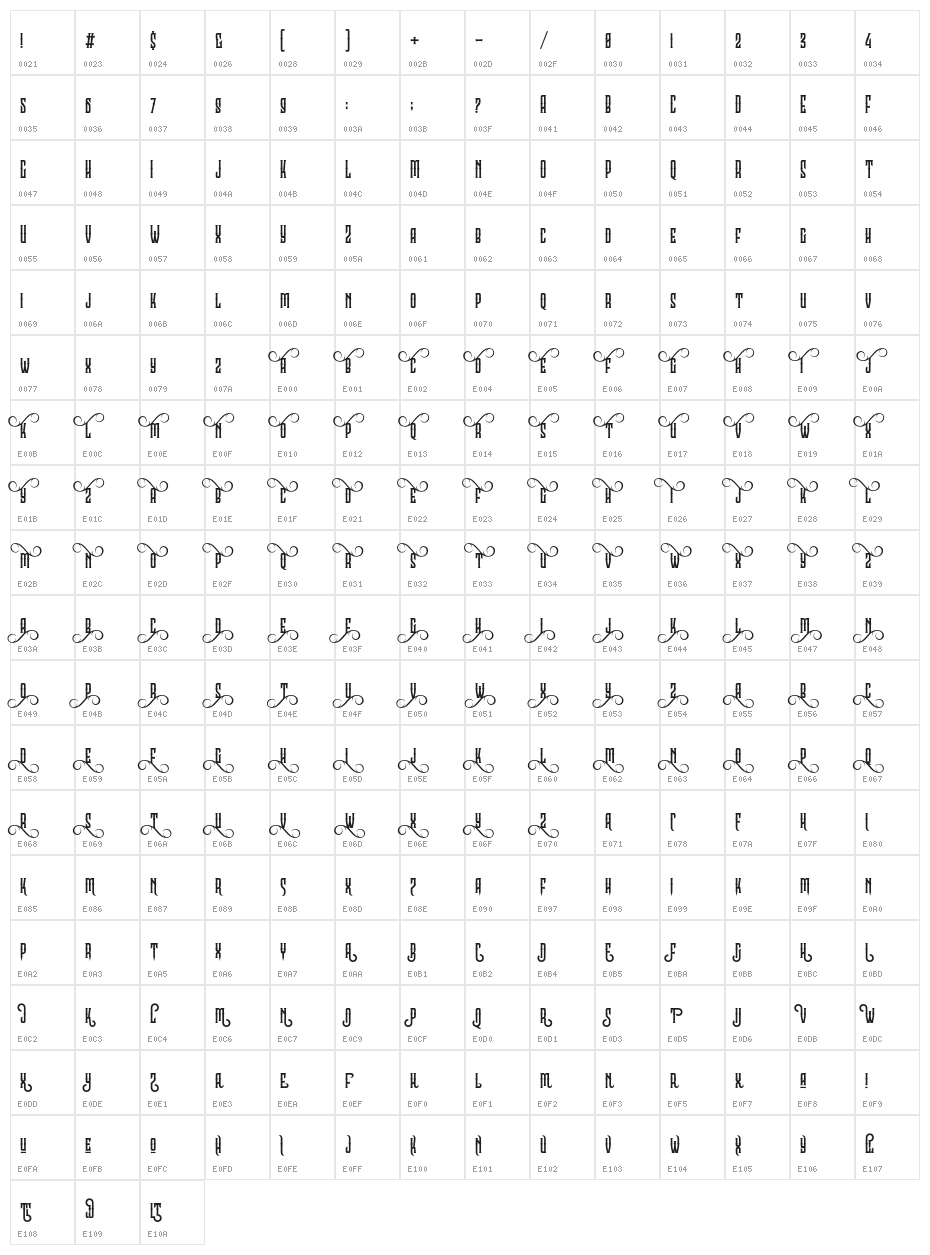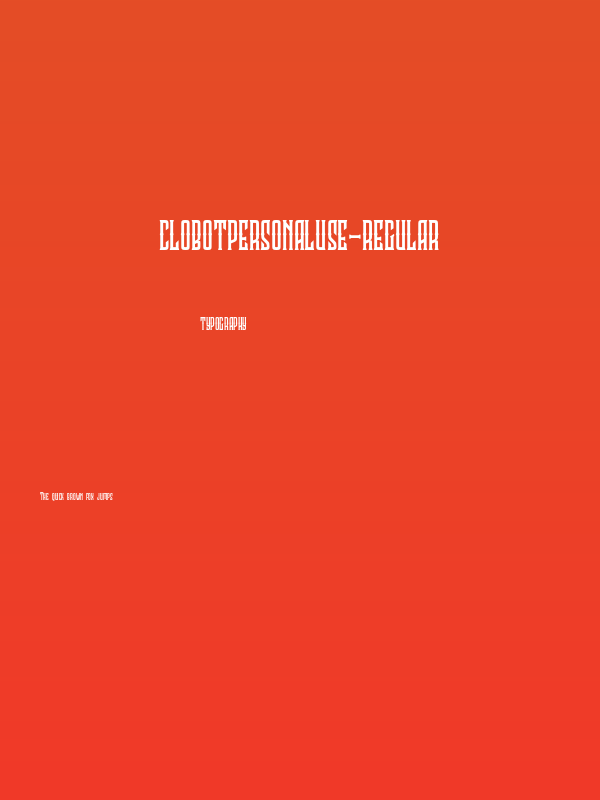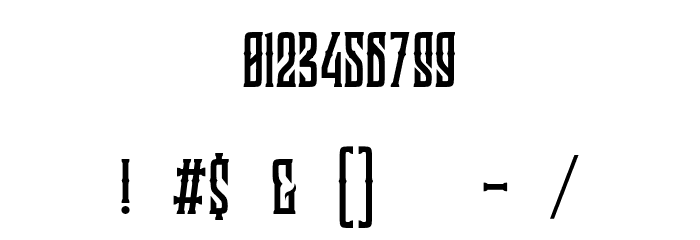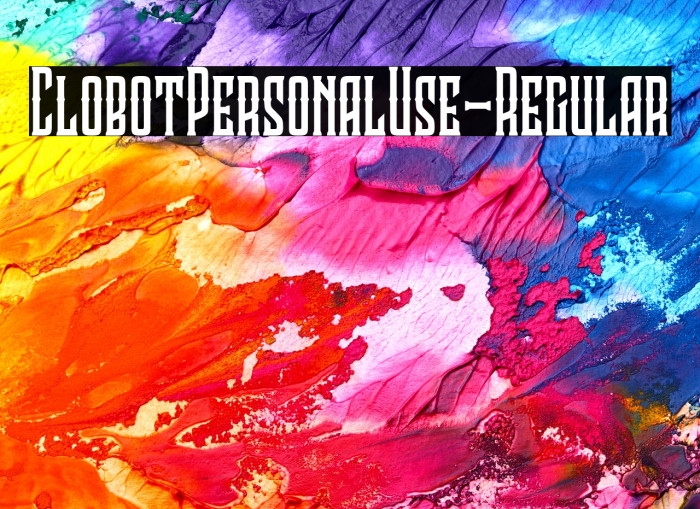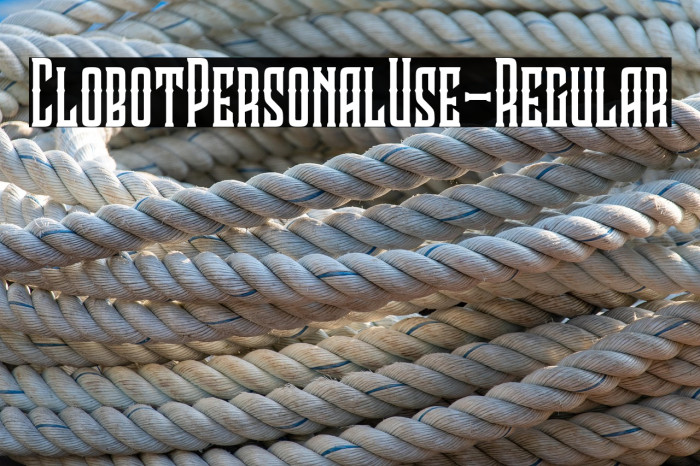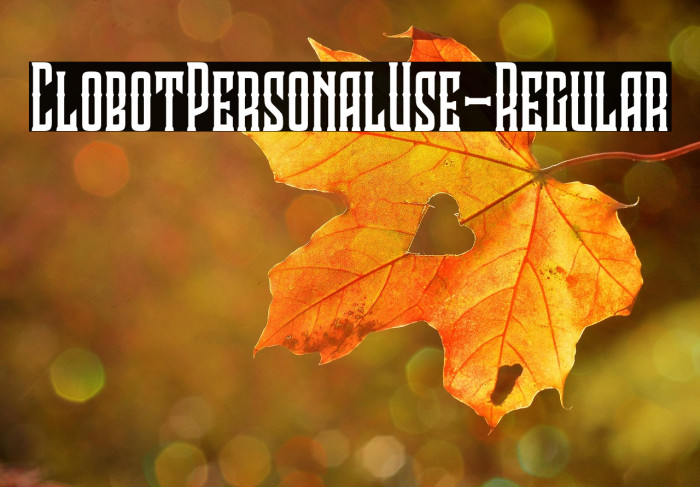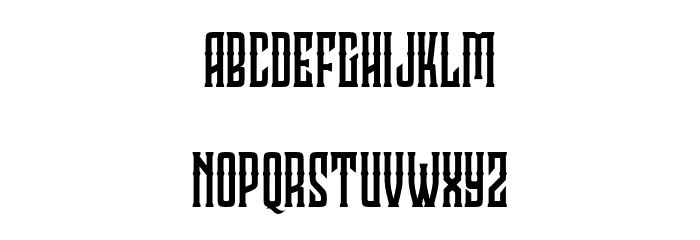
ClobotPersonalUse-Regular Font
ClobotPersonalUse-Regular Description
This font features a bold, decorative style with a distinctly modern edge. The characters are tall and narrow, with sharp angles and a geometric influence that gives them a futuristic appearance. The uppercase letters are particularly striking, with a uniform height and consistent stroke width that creates a cohesive look. The lowercase letters maintain the same angular style, ensuring readability while adding a unique flair. Numbers and special characters are designed to match the overall aesthetic, making this font versatile for various design needs. The spacing between characters is tight, enhancing the compact and impactful nature of the text.
| Proposed Projects | Ideal for futuristic branding, sci-fi themed projects, posters, and video game graphics. |